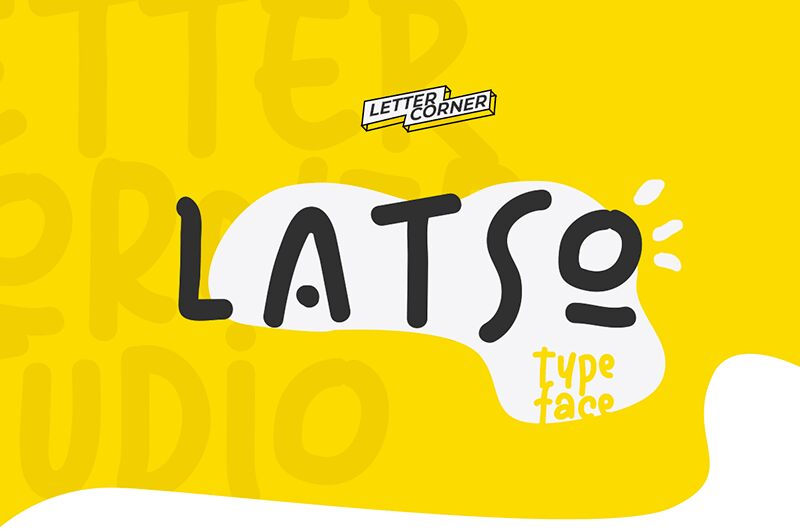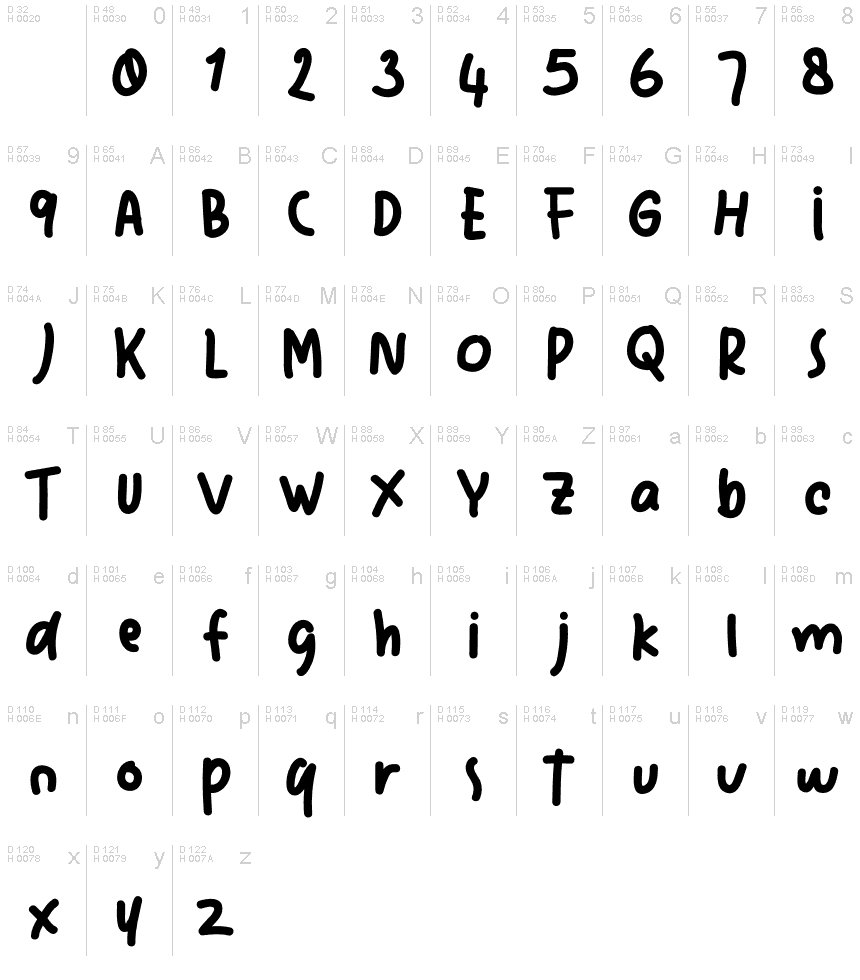
Mocha Frappuccino's Latso is a casual handwritten font perfect for crafting unique, authentic designs. With its organic curves and strokes, this font is ideal for creating eye-catching logos, greeting cards, invitations, and more!